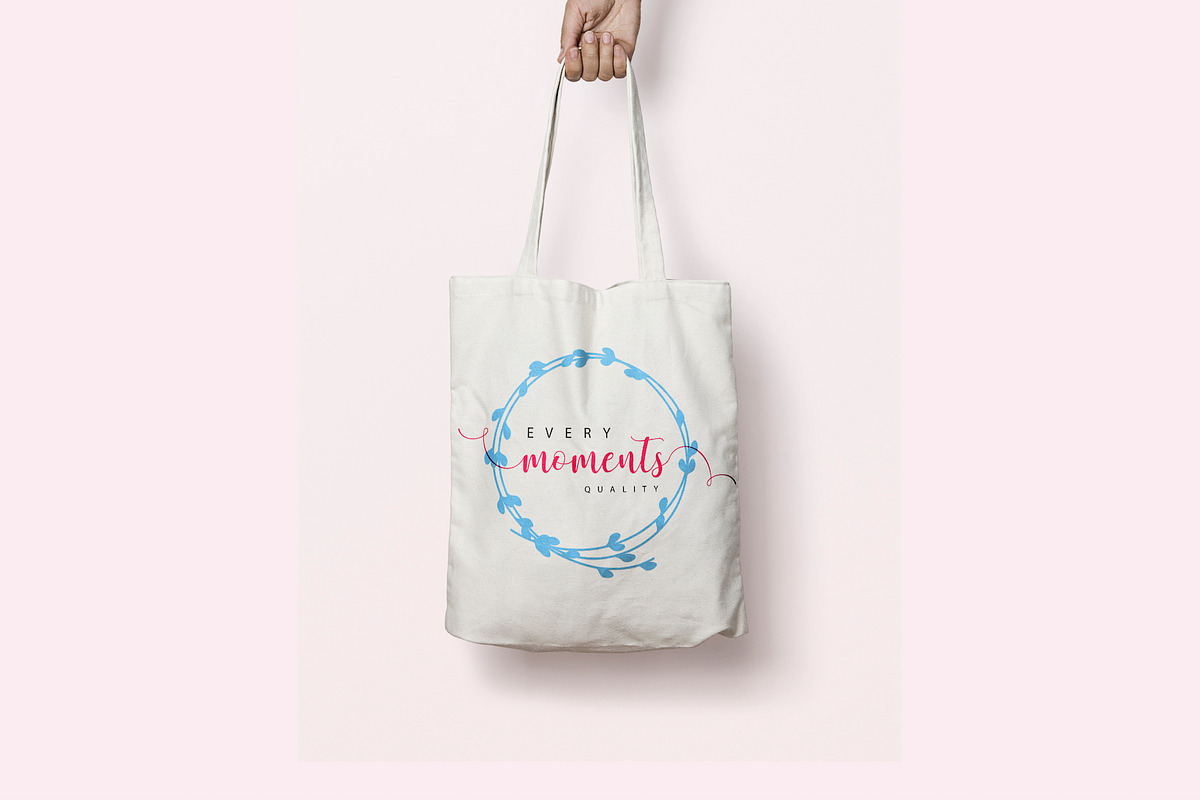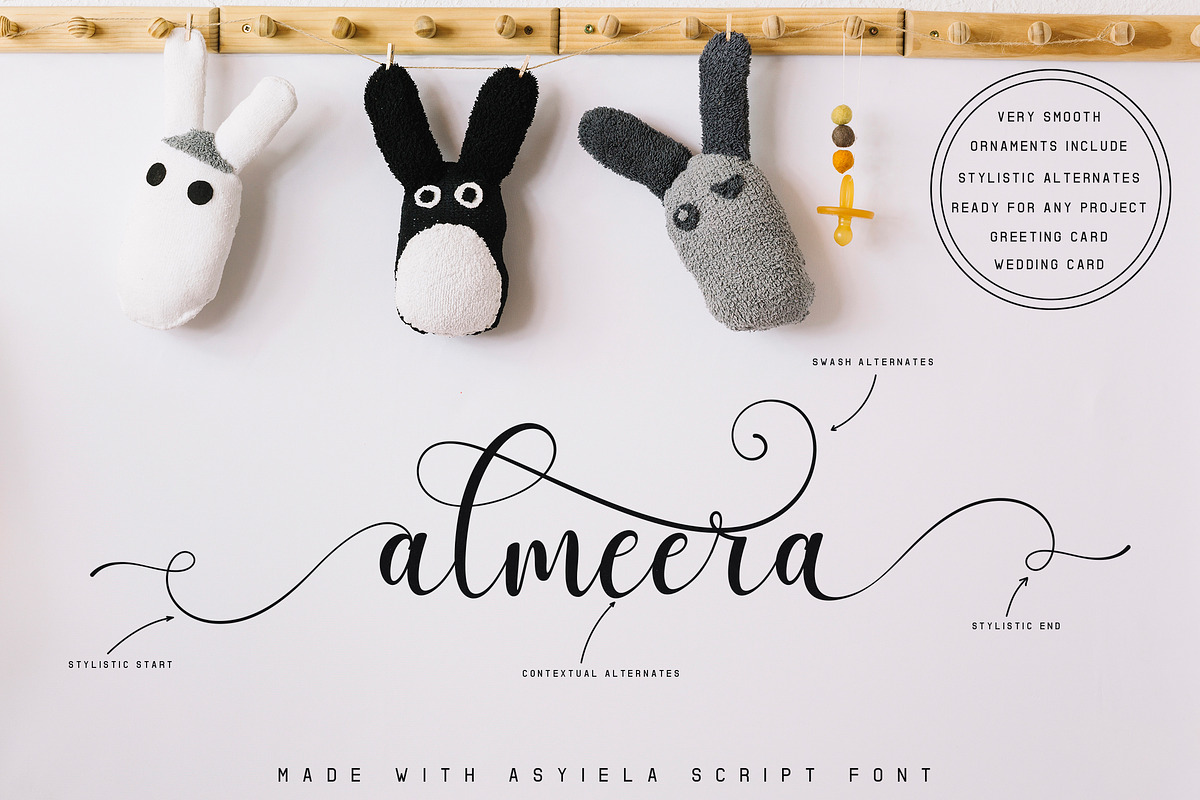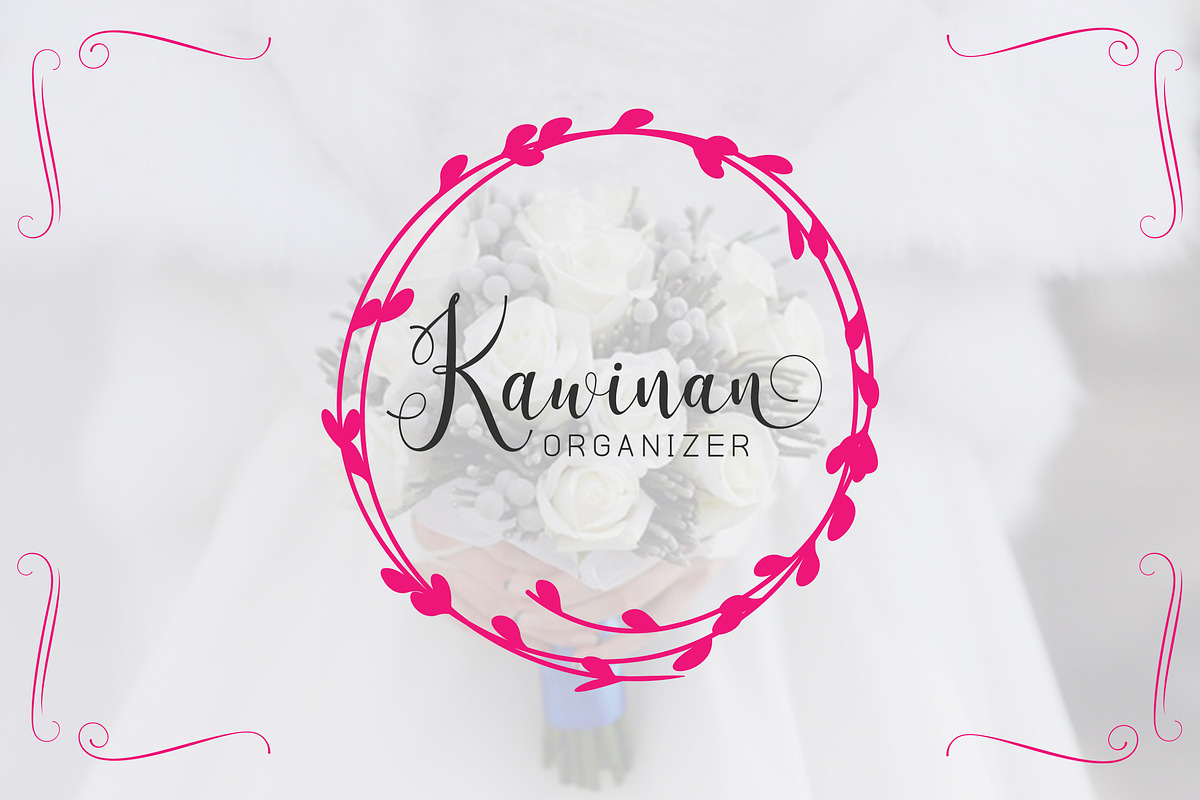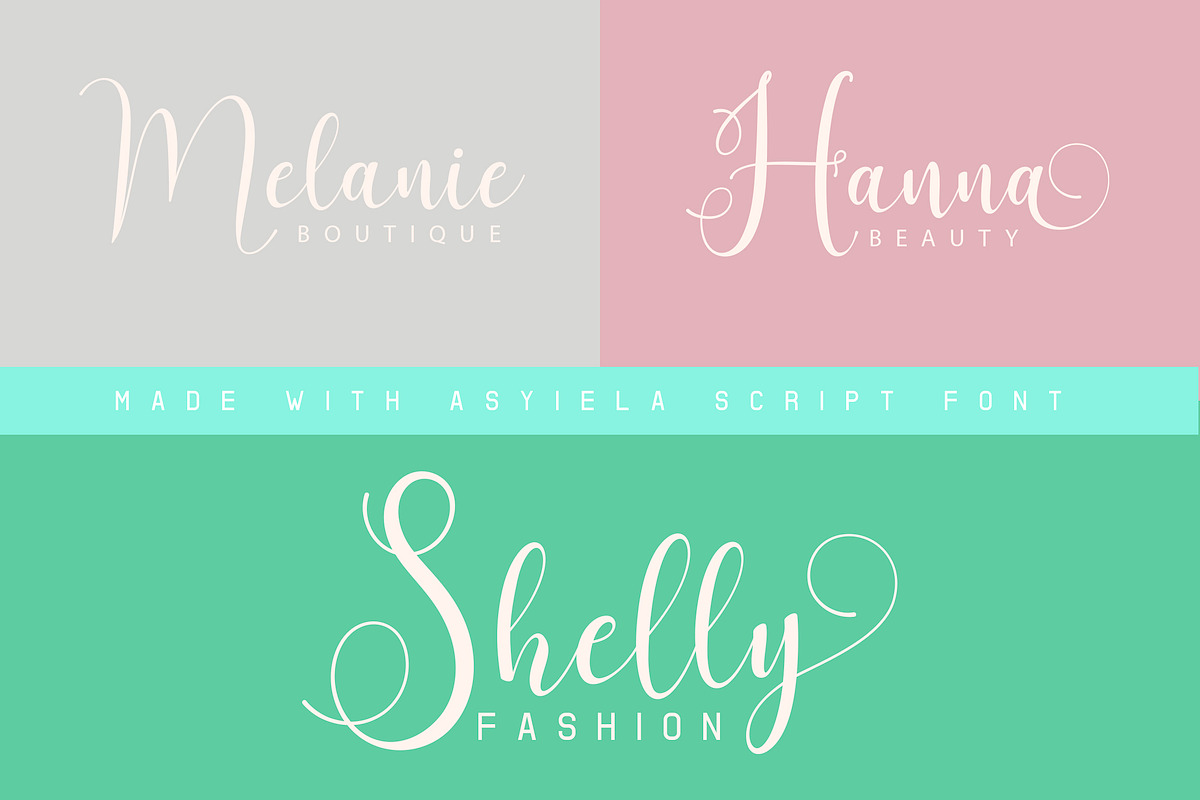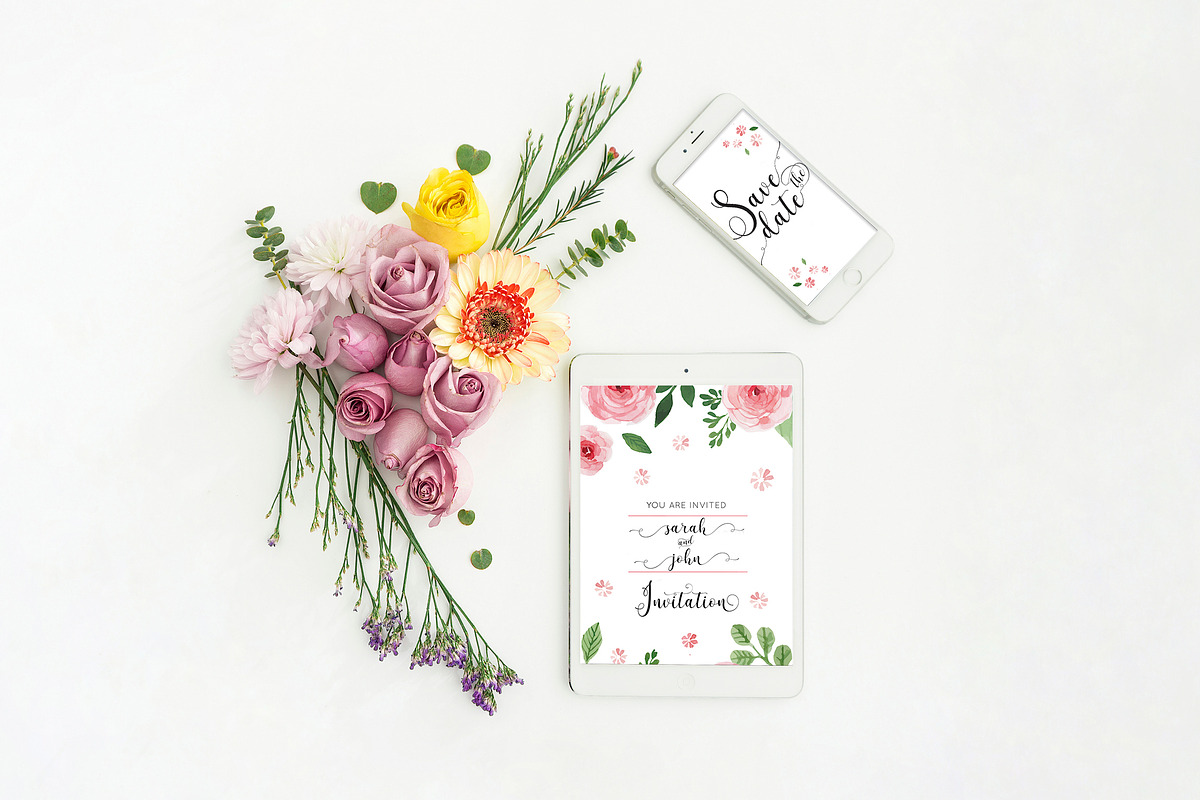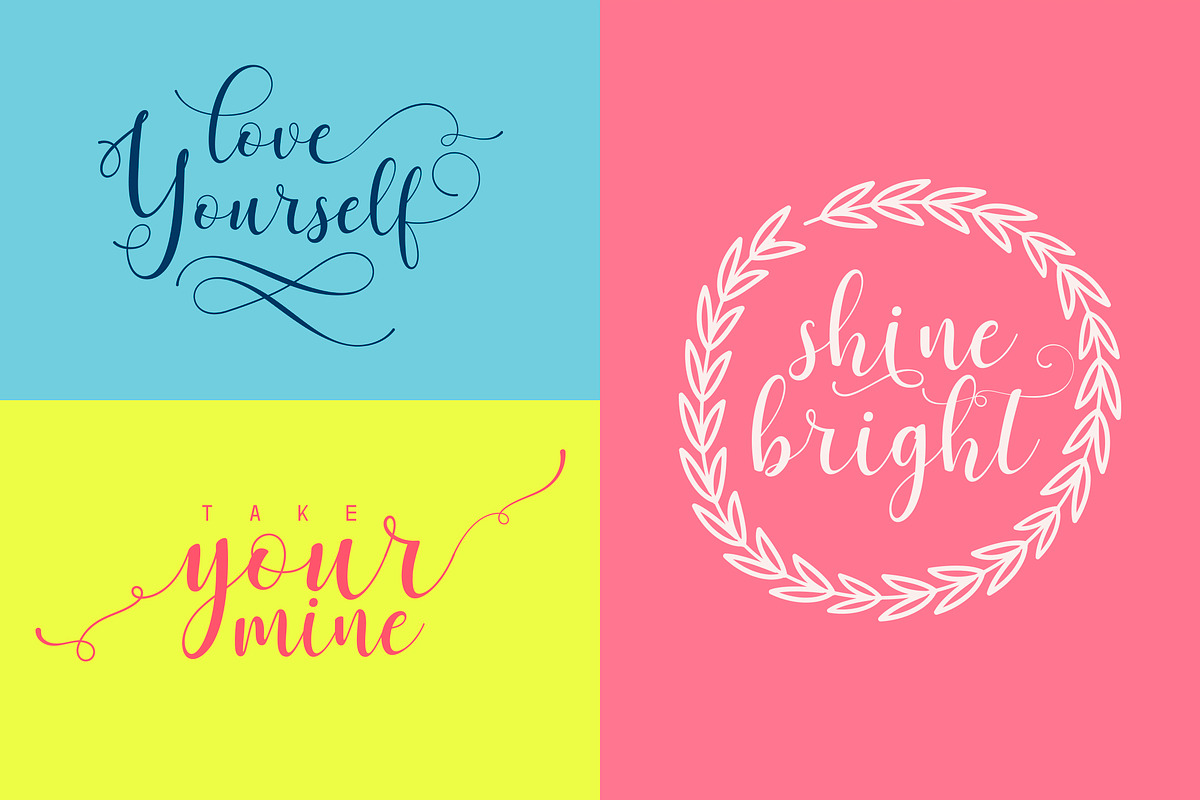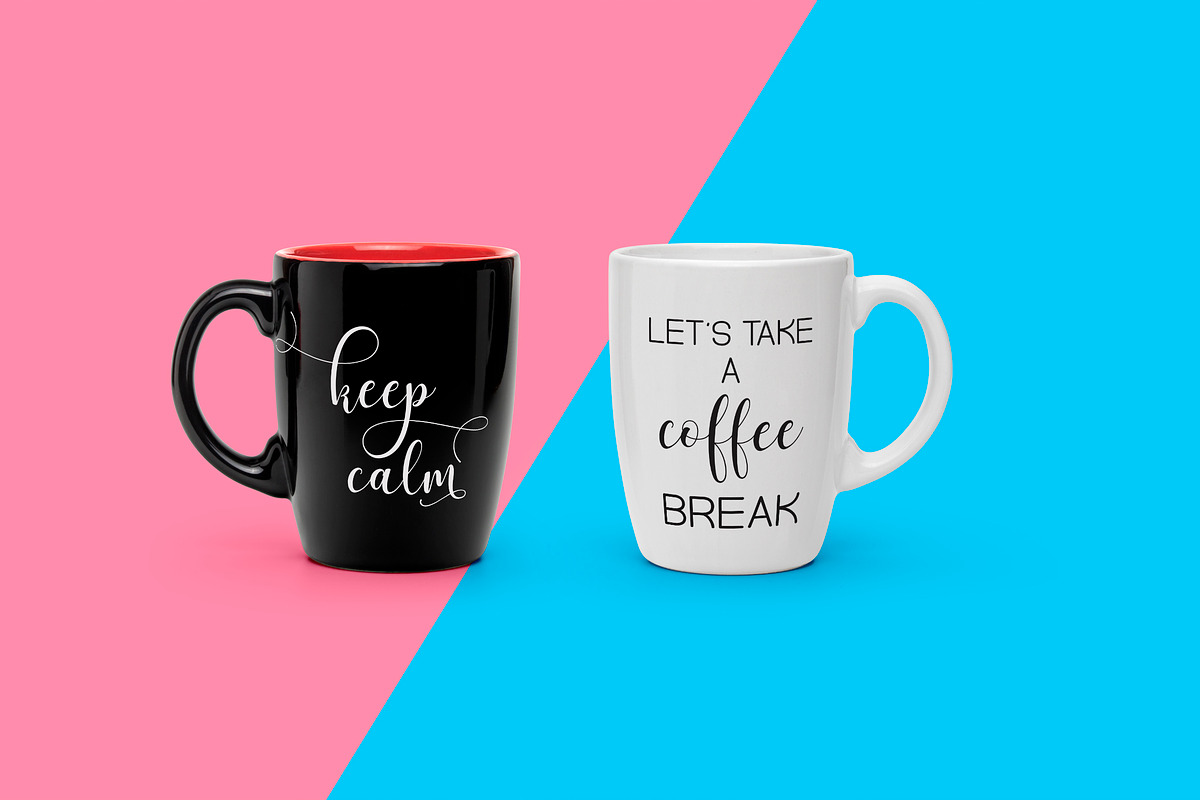
Asyiela Script Font Collection
Asyiela font Script made with love, this font is very good for weddings, birthdays, cosmetic products, fashion, and other designs you want. Asyiela fonts are currently available with regular and slanted versions with extra flower and ornaments.
Asyiela Script features with :
Basic Glyphs, Numerals, Symbol and punctuation
Stylistic Sets 1 - 13
Ligatures and Discretionary Ligatures